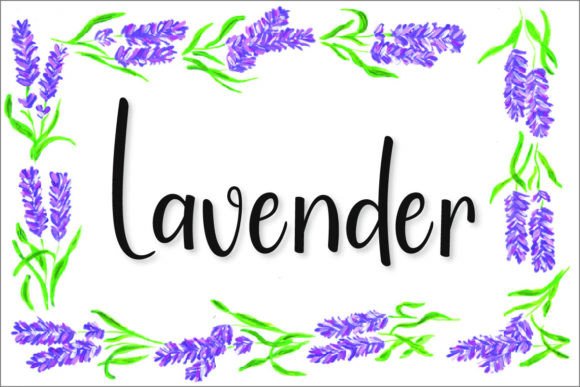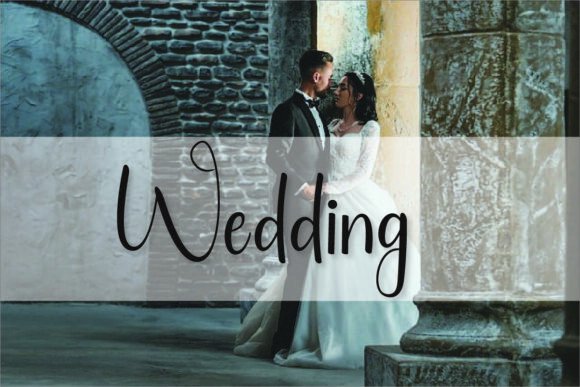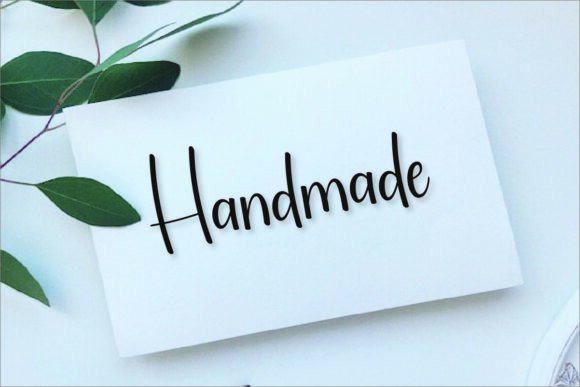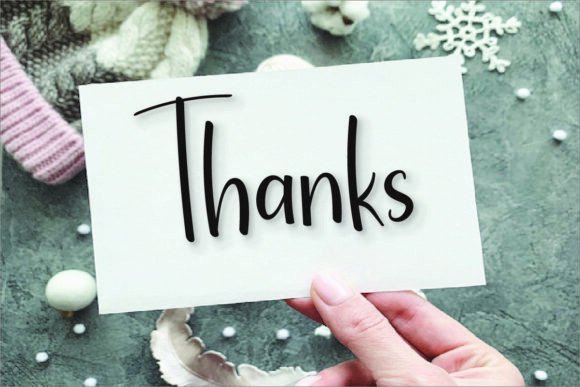
Hello California Font: Elevate Your Designs with Elegance and Class
In the world of typography, fonts play a crucial role in conveying the tone and aesthetic of a design. For designers and crafters seeking to add a touch of sophistication and elegance to their projects, the Hello California Font is an excellent choice. This trendy handwritten font boasts a contemporary atmosphere and impeccable form, inspired by timeless classic calligraphy.
The Inspiration Behind Hello California Font
Hello California Font draws inspiration from the art of traditional calligraphy, where the emphasis is on beautiful handwriting and precise lettering. The font’s creator aimed to capture the essence of classic calligraphy and infuse it with a modern twist, resulting in a unique and stylish typeface. The outcome is a font that exudes elegance, refinement, and a sense of luxury.
Key Features of Hello California Font
- Trendy and Contemporary: Hello California Font features a modern and fresh design that will make your projects stand out from the crowd.
- Handwritten with Flair: The font’s handwritten style adds a personal touch to your designs, making them more approachable and engaging.
- Inspired by Classic Calligraphy: The font’s roots in traditional calligraphy provide a sense of timelessness and sophistication.
- Impeccable Form: Each letterform is carefully crafted to ensure perfect proportions and balance, making the font a joy to work with.
Uses for Hello California Font
Hello California Font is an incredibly versatile typeface that can be used in a wide range of design projects, including:
- Branding and Logo Design: Add a touch of elegance to your brand’s identity with this sophisticated font.
- Wedding and Event Planning: Create beautiful wedding invitations, programs, and other stationery with Hello California Font.
- Packaging Design: Elevate your product packaging with a font that exudes luxury and refinement.
- Graphic Design: Use Hello California Font in your graphic design projects, such as brochures, flyers, and posters.
Why Choose Hello California Font?
With so many fonts available, why choose Hello California Font? Here are a few compelling reasons:
- Unique and Distinctive: Hello California Font stands out from more traditional fonts, offering a fresh and modern alternative.
- Elegant and Refined: The font’s classic calligraphy inspiration ensures that your designs will always look sophisticated and polished.
- Easy to Read: Despite its elegant style, Hello California Font remains highly legible, making it perfect for body text and headlines.
Tips for Using Hello California Font
To get the most out of Hello California Font, consider the following tips:
- Pair with Contrasting Fonts: Combine Hello California Font with a simpler font to create visual interest and hierarchy.
- Experiment with Colors: Try pairing the font with different colors to create a unique and eye-catching design.
- Pay Attention to Spacing: Make sure to adjust the tracking and kerning to ensure that the font looks its best.
Hello California Font is an exceptional choice for designers and crafters seeking to add elegance and class to their projects. With its trendy yet timeless design, impeccable form, and versatility, this font is sure to become a staple in your design toolkit. Whether you’re working on a branding project, wedding invitation, or packaging design, Hello California Font is the perfect choice for those who value sophistication and refinement.